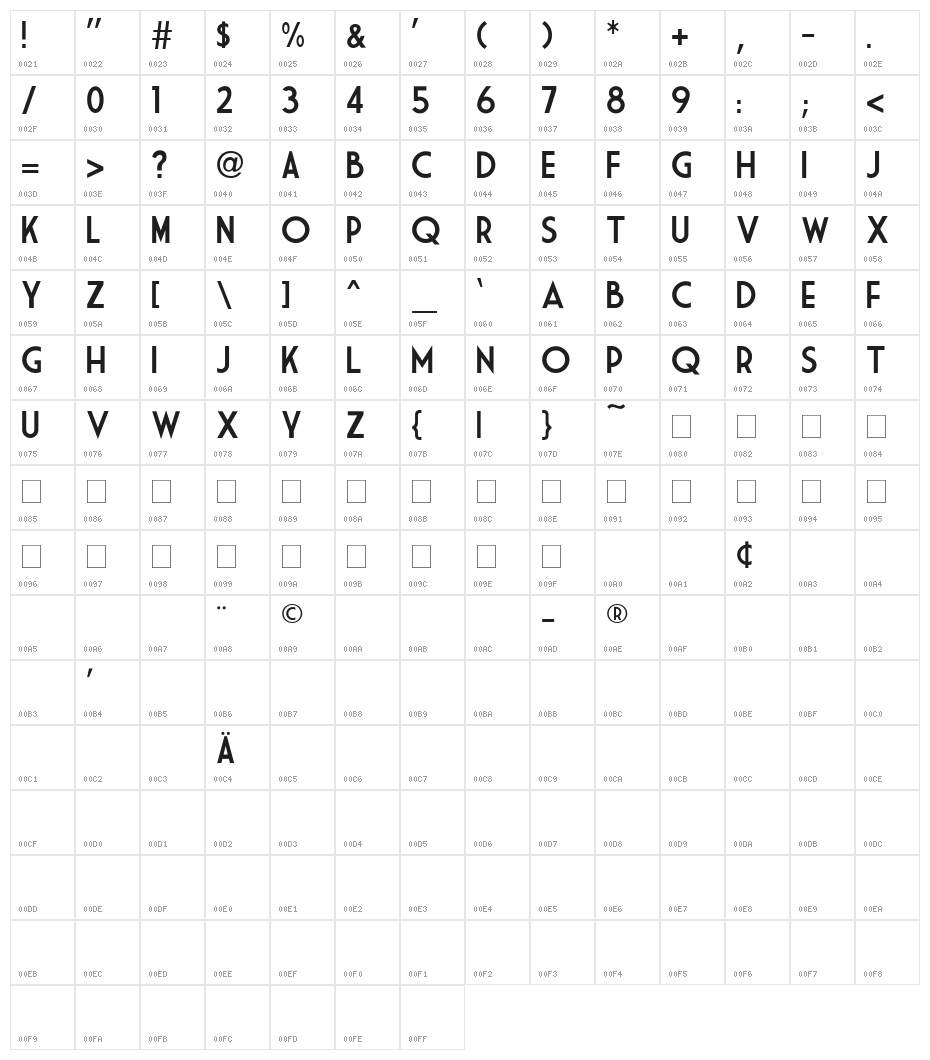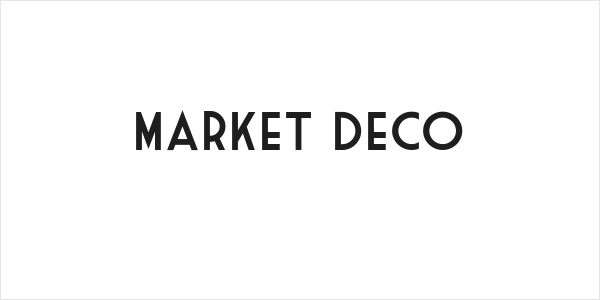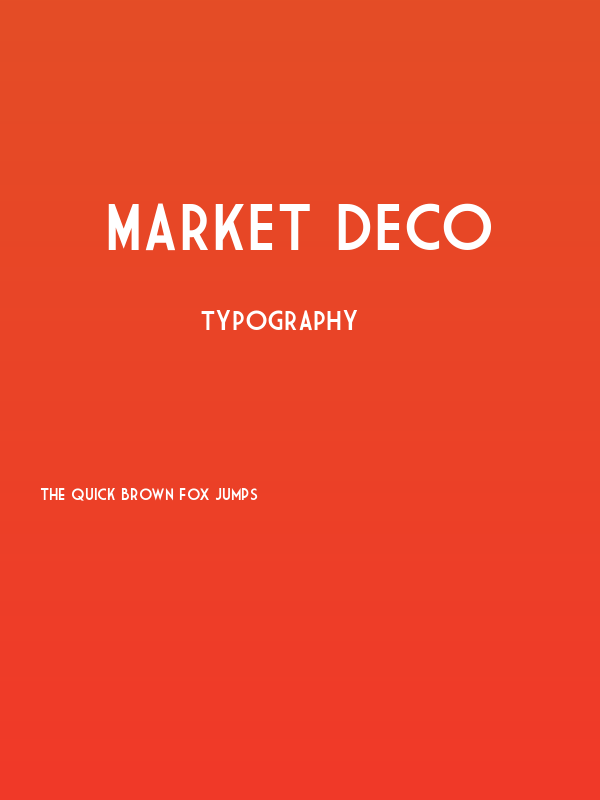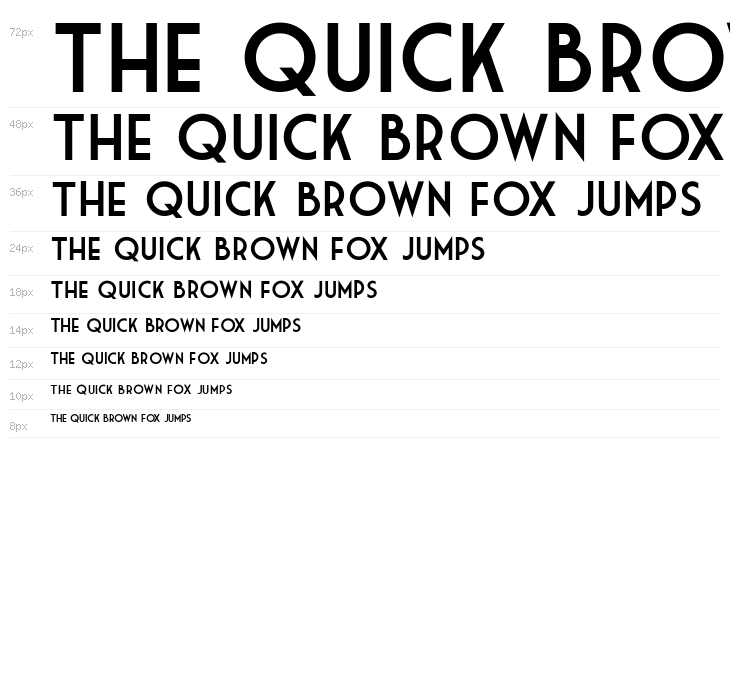
Market Deco Font
Market Deco Description
This font exhibits a bold and geometric style with strong, clean lines and a modern aesthetic. The characters are well-defined, featuring a uniform stroke width that gives a sense of stability and strength. The uppercase letters are particularly striking, with a slightly condensed appearance that enhances their impact. The numerals and special characters maintain the same boldness, ensuring consistency across all glyphs. This font's design is reminiscent of early 20th-century art deco influences, characterized by its simplicity and elegance. It is highly legible, making it suitable for various design applications.
| Proposed Projects | Ideal for branding, posters, headlines, and any project requiring a strong, modern aesthetic. |